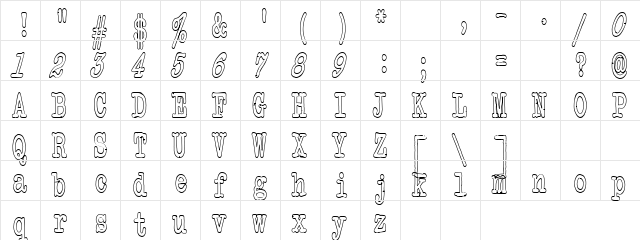
Hollow Type Regular
Design Context for Hollow Type Typeface
Hollow Type offers clean, dependable letterforms without strong stylistic allegiance, making it a practical choice for designers who need flexibility.